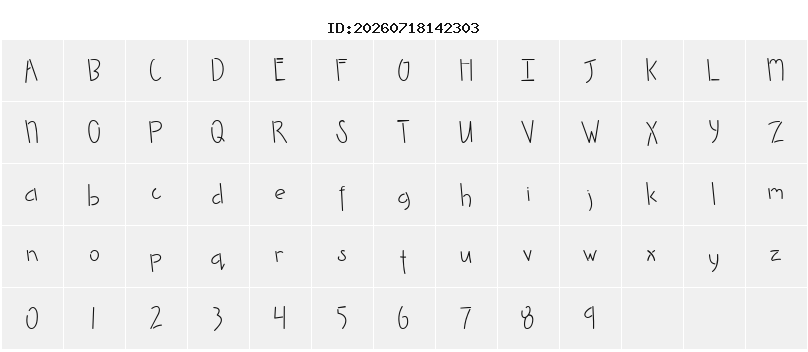
• Font Name: CK Nifty
About CK Nifty.ttf
CK Nifty.ttf is a modern, elegant sans-serif font designed for ultimate readability and visual harmony. Perfect for branding, headlines, web design, and print materials.